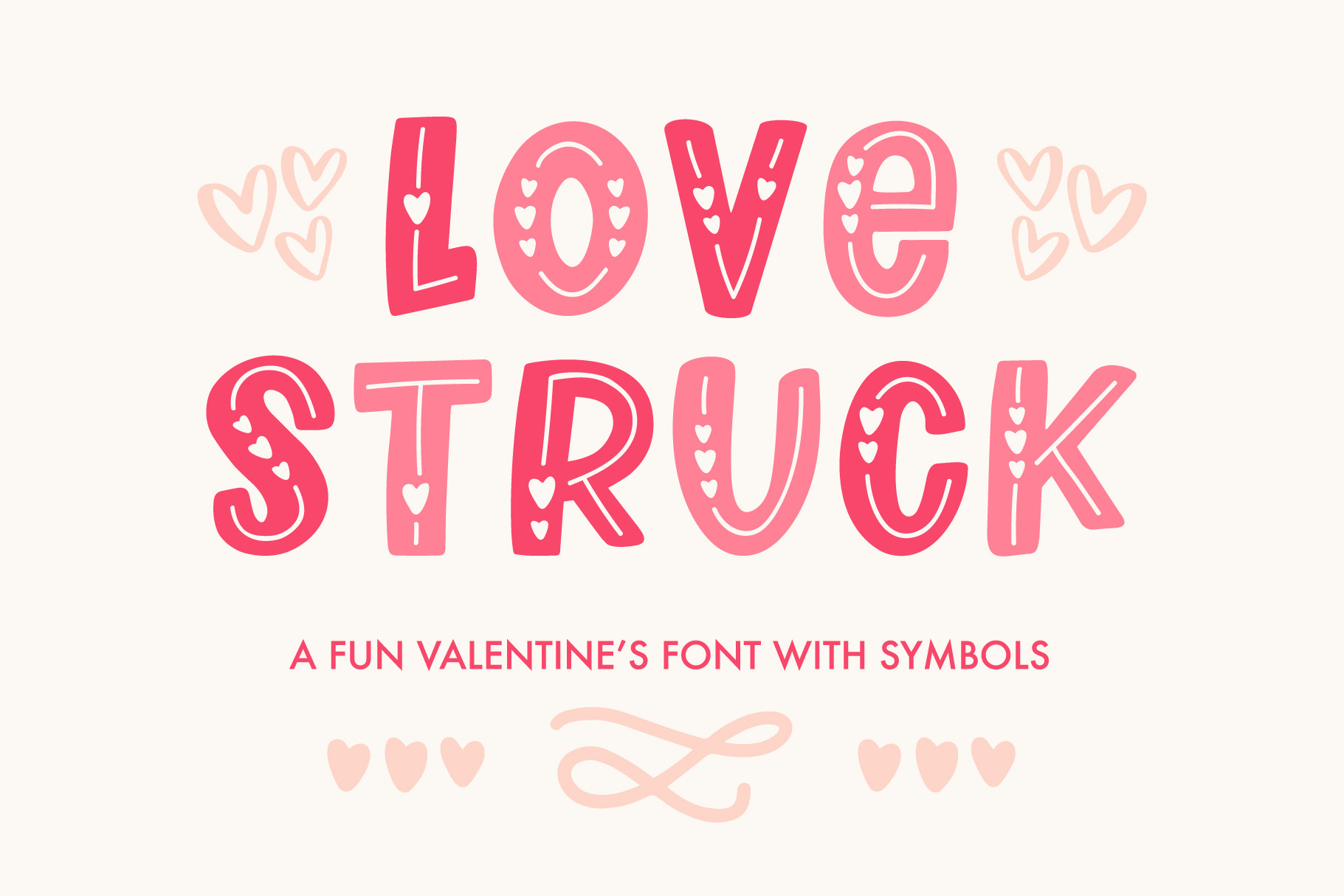
Love Struck, Valentine's Font
Love Struck is a fun Valentine's Day font with symbols!
- 26 uppercase letters
- 26 doodles in the lowercase spots
- Numbers and symbols